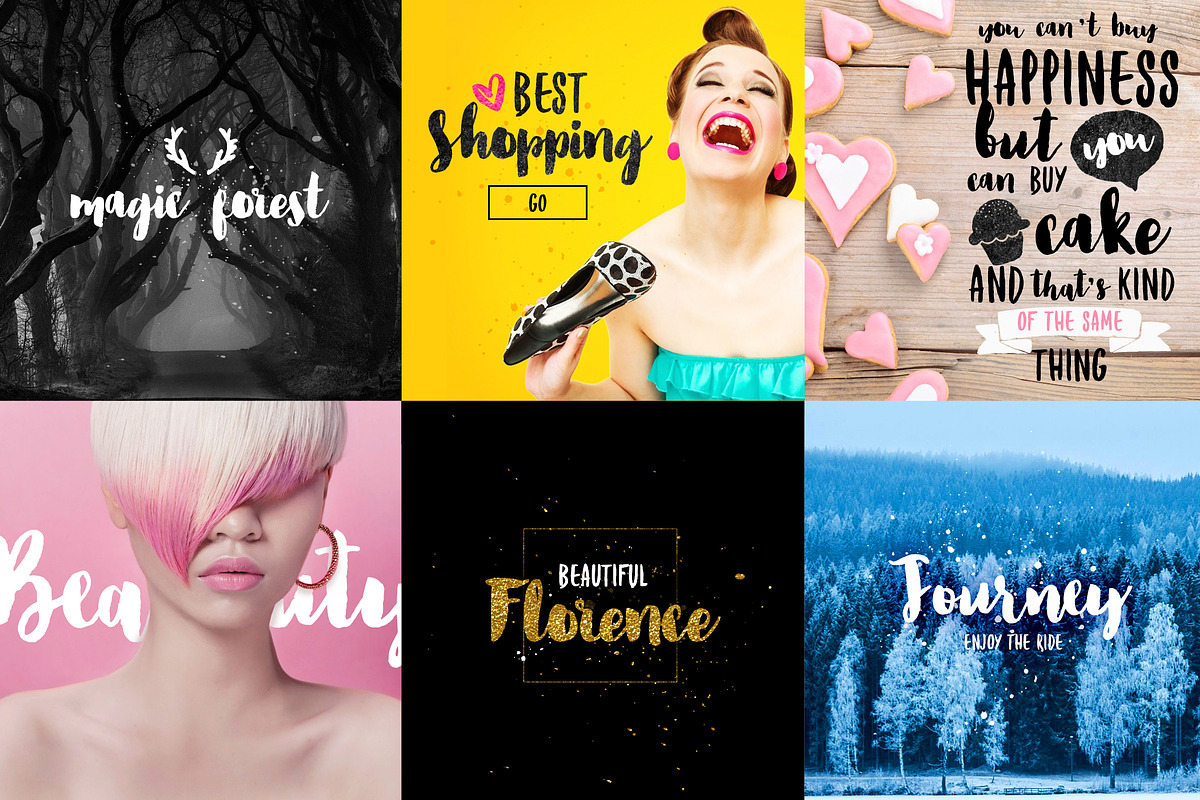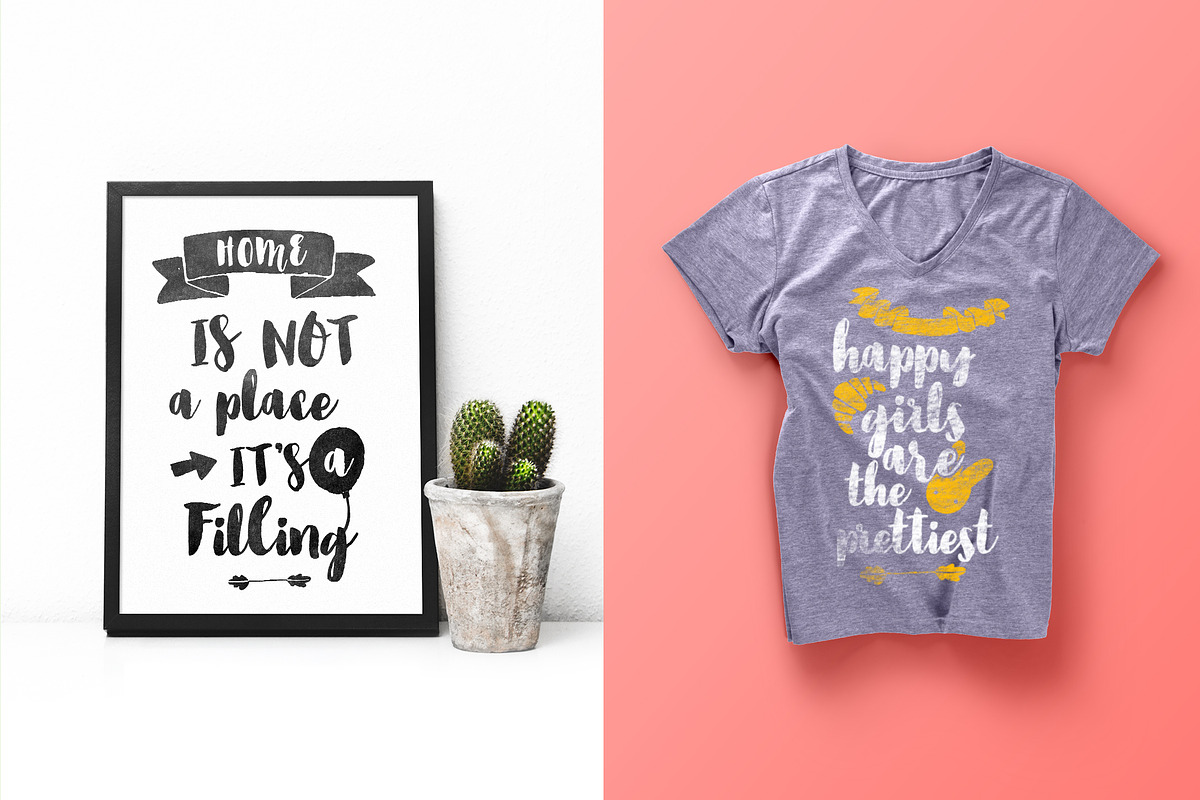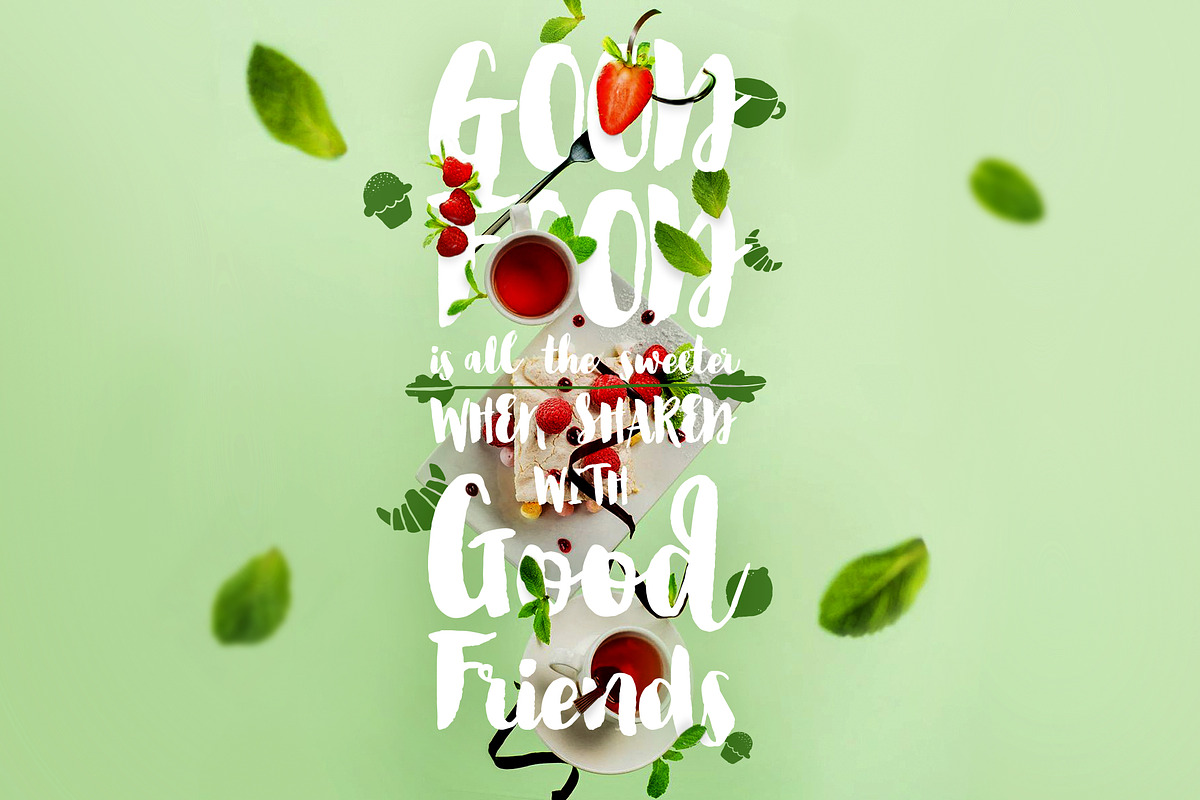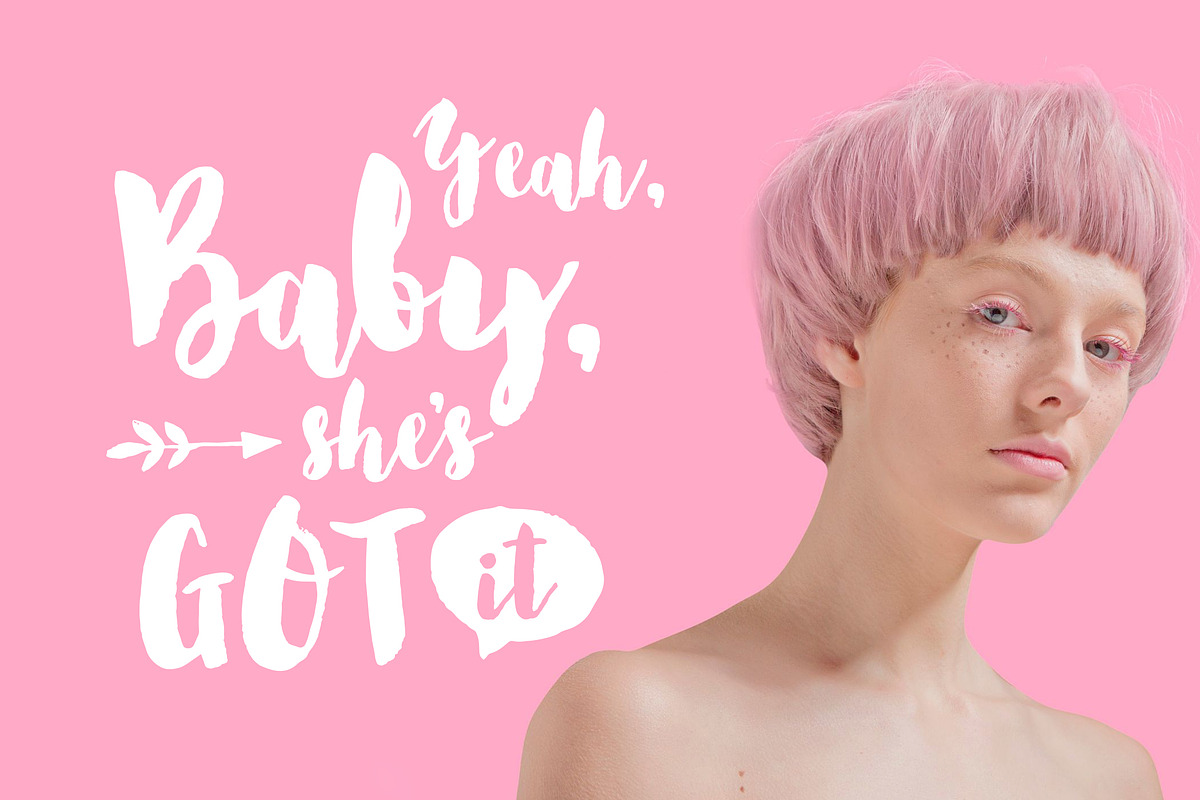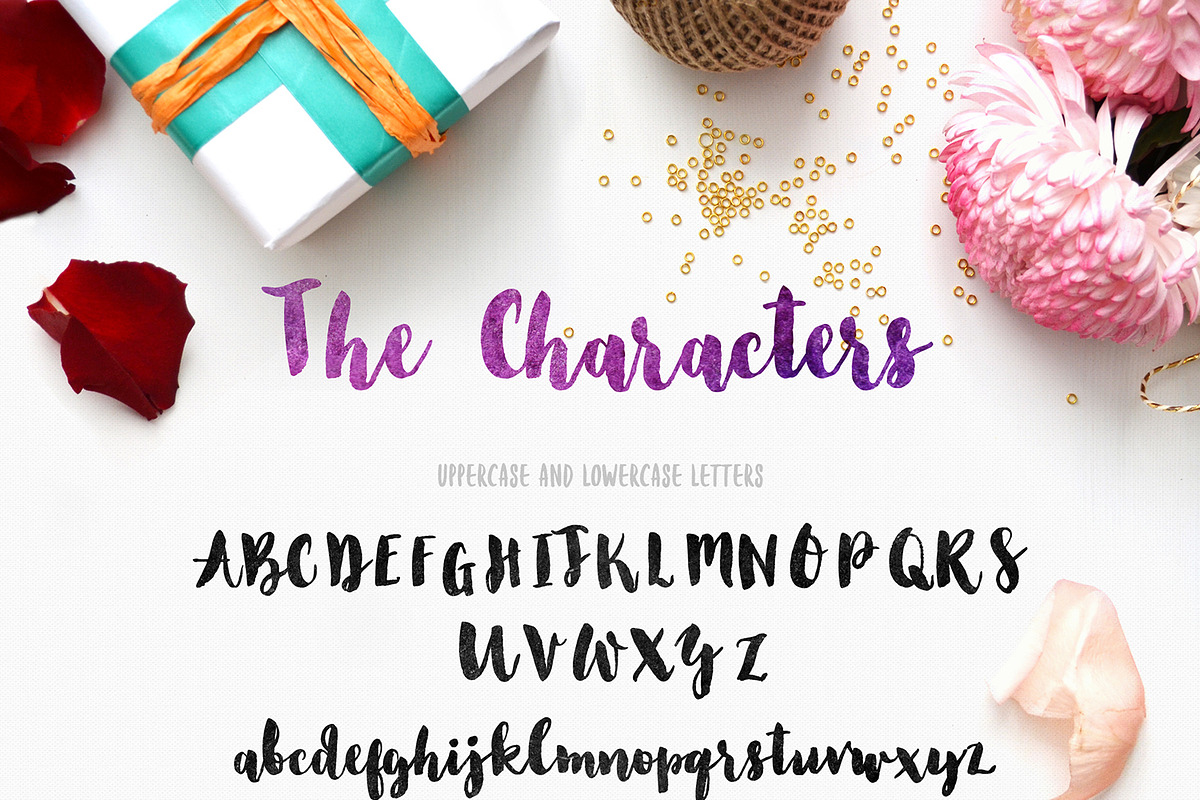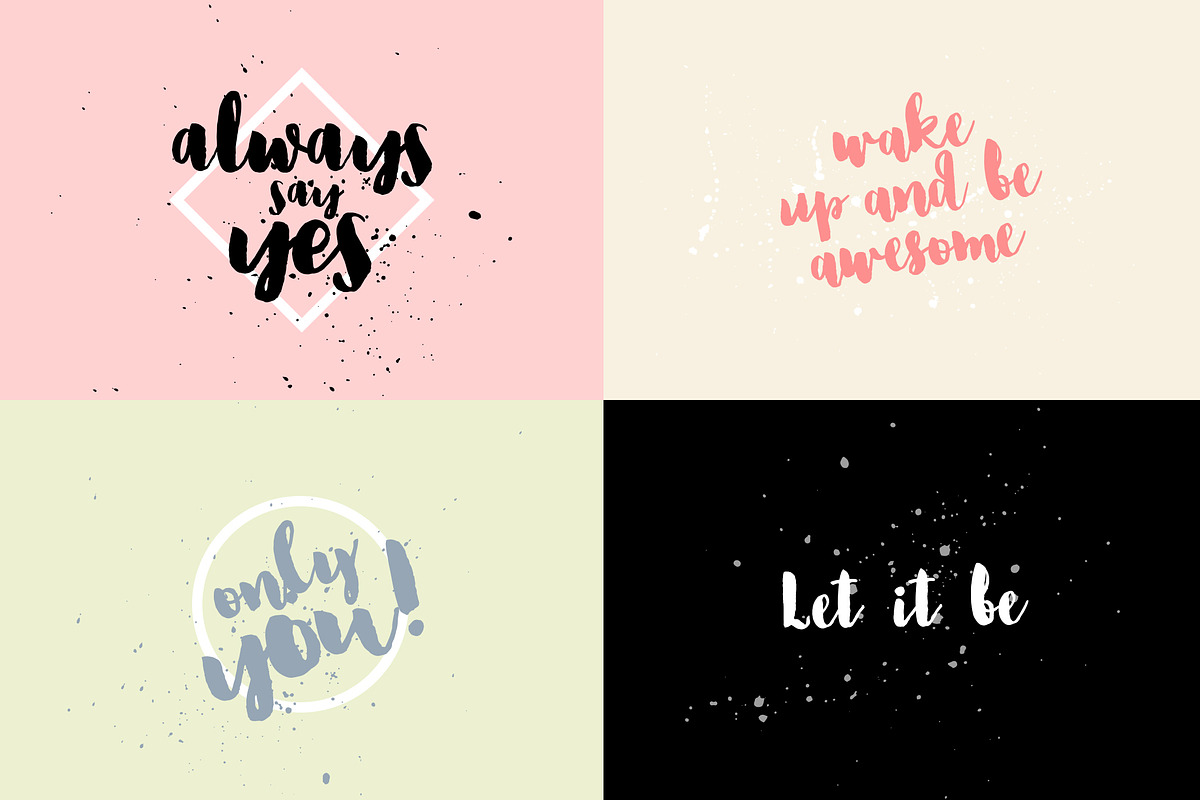
90% Off. Florence Brush Font by kavoon is a font selected for branding, posters, packaging, typography.
- Florence comes with two font styles; Florence regular & Florence helper.
90% Off. Florence Brush Font by kavoon fits naturally into Branding, posters, packaging, typography.